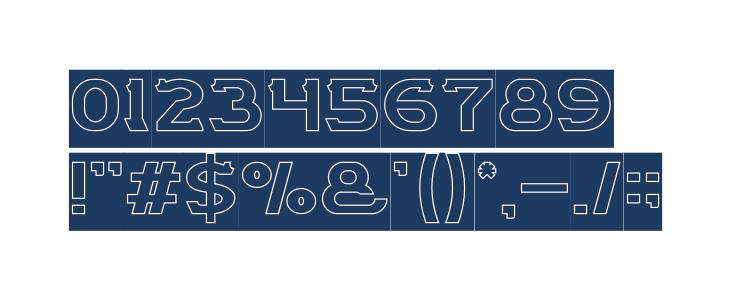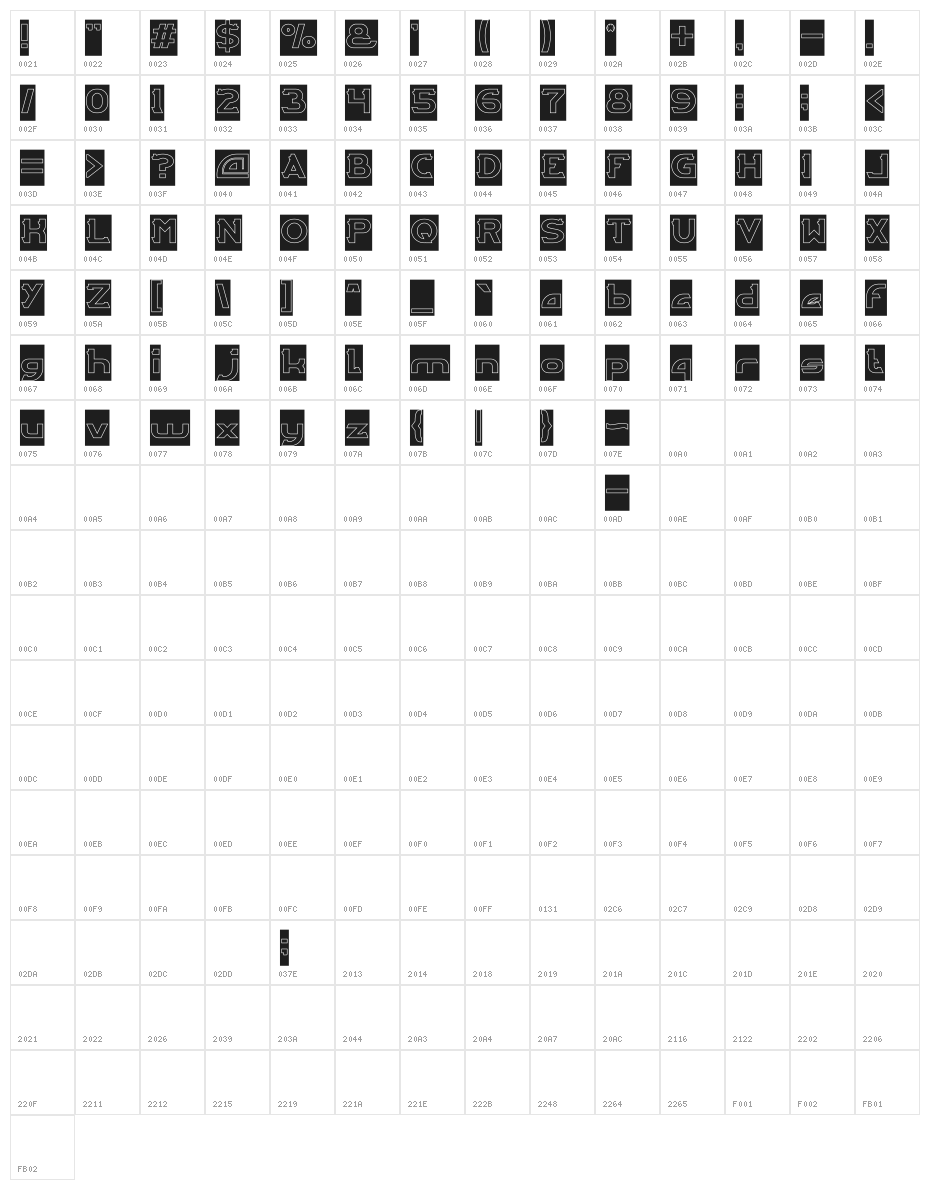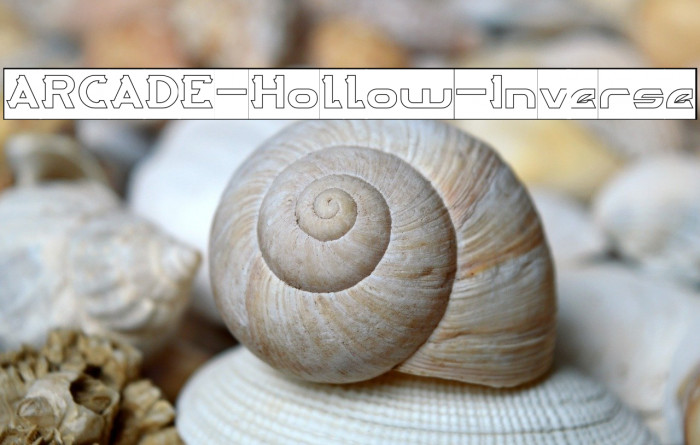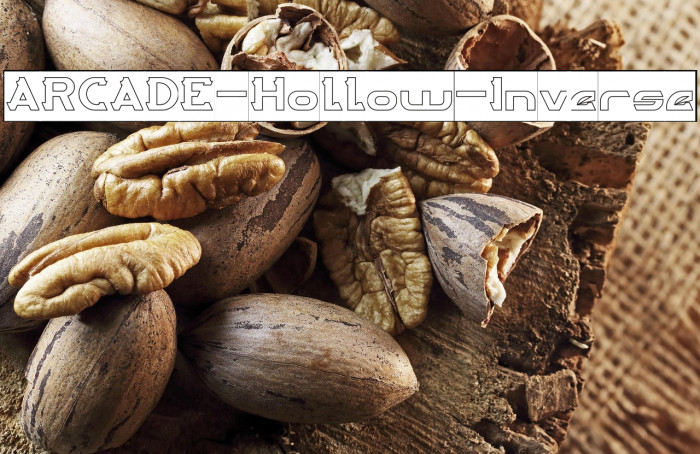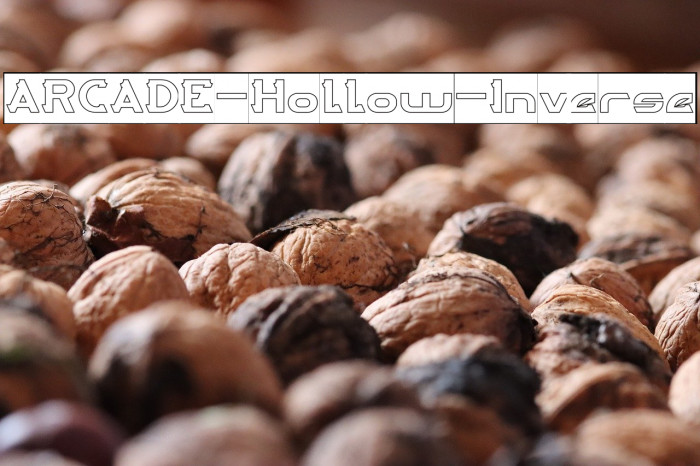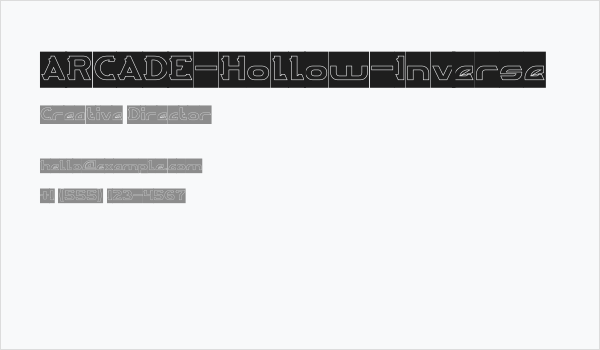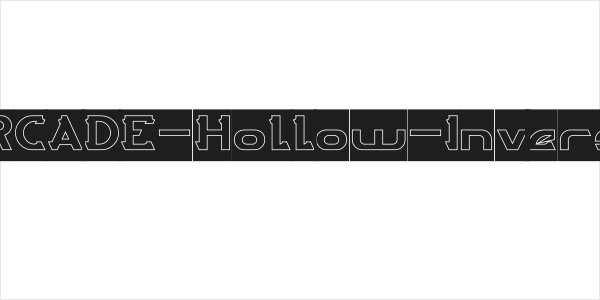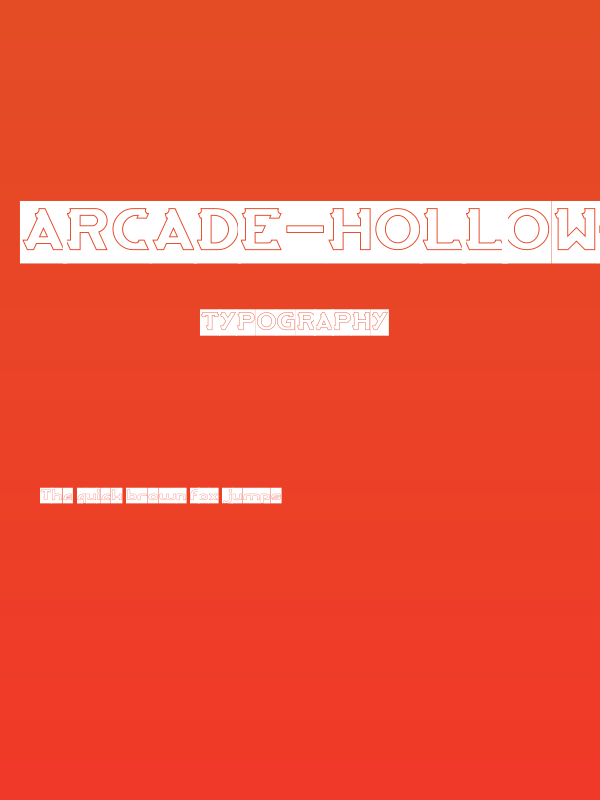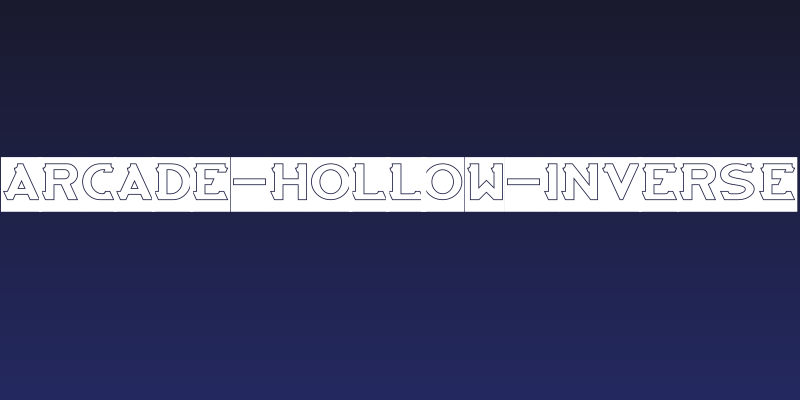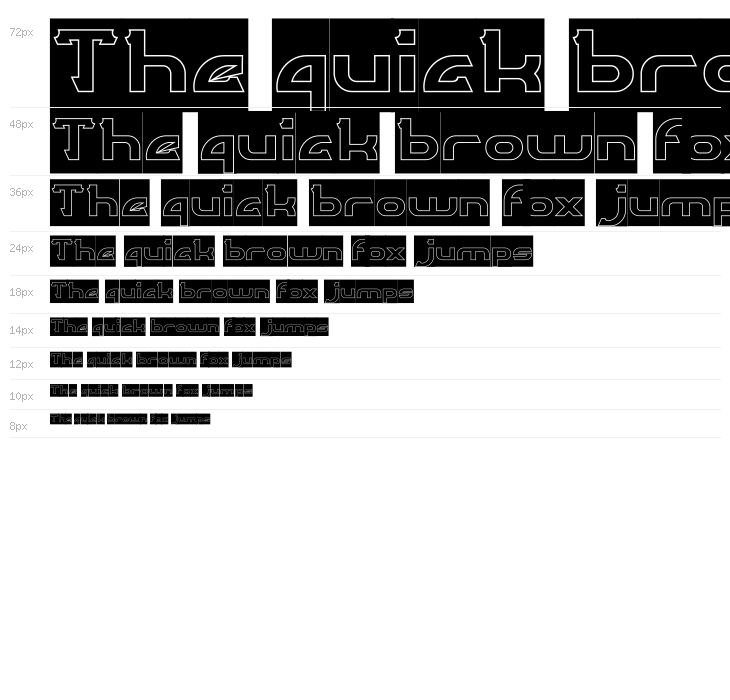
ARCADE-Hollow-Inverse Font
ARCADE-Hollow-Inverse Description
This font features a bold, hollow design with a distinct inverse style that gives it a futuristic and digital appearance. The uppercase and lowercase letters maintain a consistent geometric structure, with sharp angles and clean lines. The numbers and special characters follow the same aesthetic, ensuring uniformity across all characters. The hollow aspect of the font creates a unique visual effect, making it stand out in any design. Its boldness is balanced by the open spaces within each character, providing a modern and edgy look.